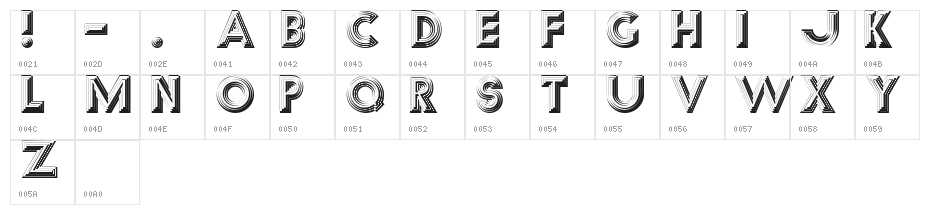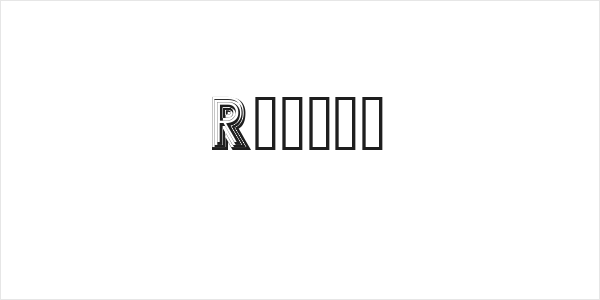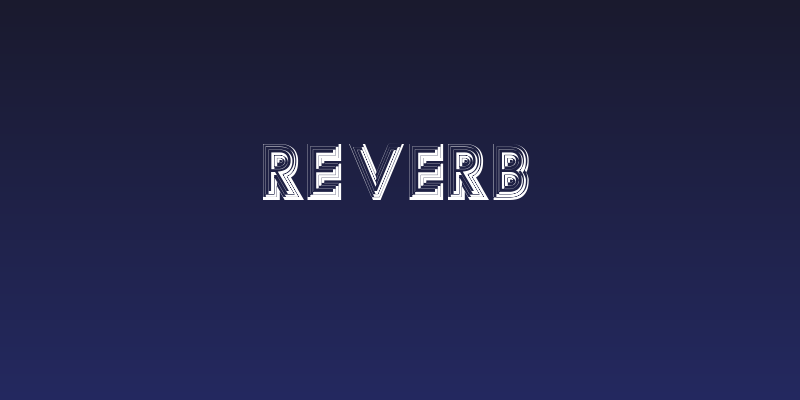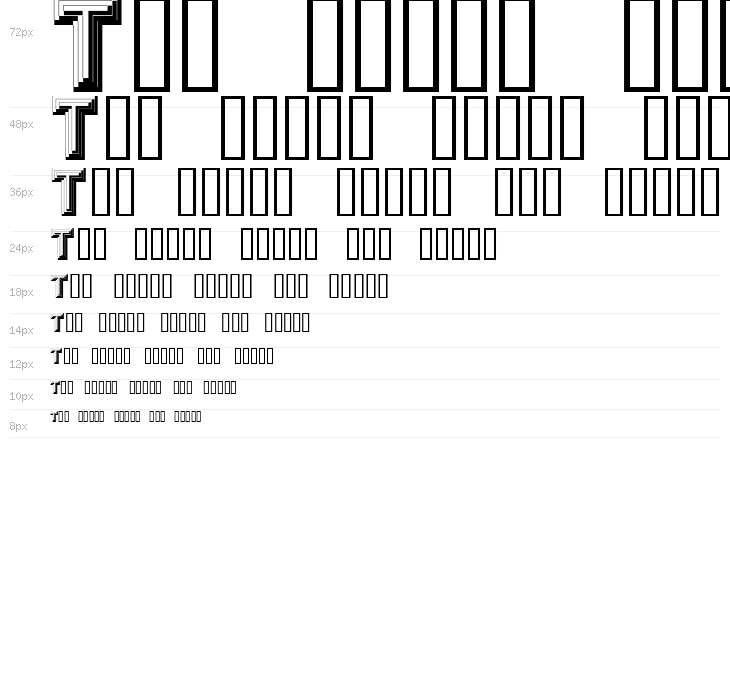
Reverb Font
Reverb Description
This font features a bold, decorative style with a distinct three-dimensional effect. Each letter is outlined with multiple layers, creating a sense of depth and movement. The uppercase letters are particularly striking, with clean lines and geometric shapes that enhance their visual impact. The design is reminiscent of vintage signage, making it ideal for projects that require a retro or nostalgic feel. The font's unique layering and shadowing effects make it stand out, ensuring that any text set in this typeface will capture attention.
| Proposed Projects | Ideal for retro-themed posters, vintage advertisements, album covers, and branding that requires a standout, nostalgic look. |